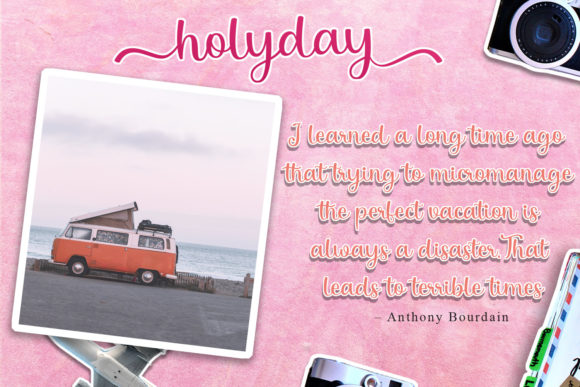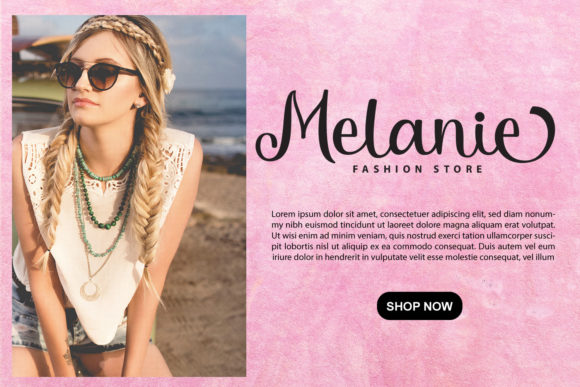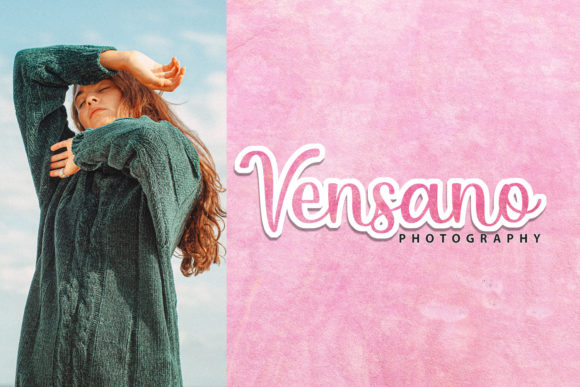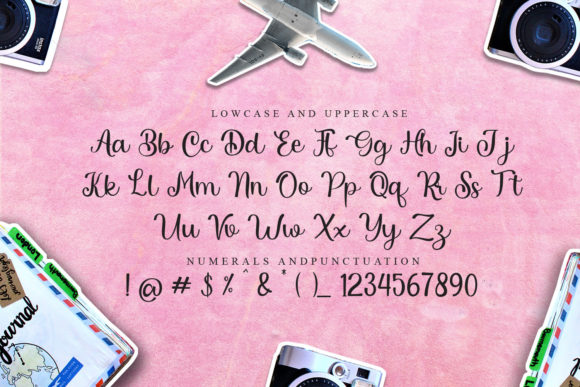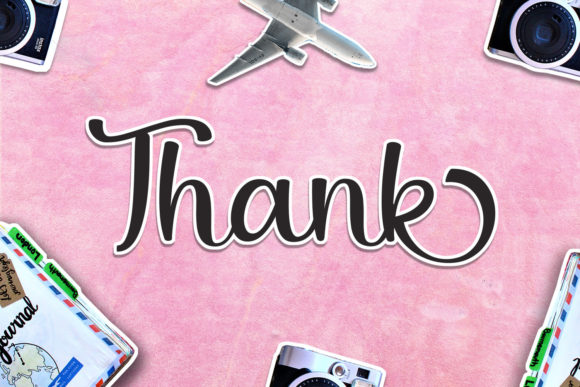
Bellami Font: Elevate Your Designs with Luxury and Elegance
Are you looking for a font that can add a touch of luxury and sophistication to your design projects? Look no further than the Bellami Font. This beautiful and light handwritten font is designed to make a stunning impact on any design, making it perfect for crafters, designers, and anyone looking to elevate their creative projects.
What Makes Bellami Font Special?
Bellami Font is not just any ordinary font. Its unique feel and stunning impact set it apart from other fonts, making it a standout choice for designers and crafters. Here are some of the key features that make Bellami Font special:
- Beautiful and Light Handwritten Font: Bellami Font is a carefully crafted handwritten font that exudes elegance and sophistication. Its light and airy feel makes it perfect for designs that require a touch of luxury and refinement.
- Unique Feel and Stunning Impact: The font’s unique feel and stunning impact make it perfect for designs that require a statement piece. Whether you’re working on a branding project, a website design, or a marketing material, Bellami Font is sure to make a lasting impression.
How to Use Bellami Font in Your Designs
Bellami Font is a versatile font that can be used in a wide range of design projects. Here are some ideas for using Bellami Font in your designs:
- Branding and Logo Design: Use Bellami Font to create a luxurious and sophisticated brand identity. The font’s unique feel and stunning impact make it perfect for logos, business cards, and other branding materials.
- Website Design: Add a touch of elegance and refinement to your website design with Bellami Font. The font’s light and airy feel makes it perfect for headings, titles, and other design elements.
- Marketing Materials: Use Bellami Font to create stunning marketing materials such as brochures, flyers, and posters. The font’s unique feel and stunning impact are sure to grab the attention of your target audience.
- Crafting and DIY Projects: Bellami Font is also perfect for crafters and DIY enthusiasts. Use the font to create beautiful and elegant titles, headings, and other design elements for your crafting and DIY projects.
Tips for Getting the Most Out of Bellami Font
Here are some tips for getting the most out of Bellami Font:
- Experiment with Different Sizes and Colors: Bellami Font looks great in a variety of sizes and colors. Experiment with different sizes and colors to find the perfect combination for your design.
- Use the Font’s Glyphs and Ligatures: Take advantage of the font’s PUA encoding by using its glyphs and ligatures. These special characters can add an extra touch of elegance and sophistication to your design.
- Pair the Font with Other Fonts: Bellami Font pairs well with other fonts. Experiment with pairing it with different fonts to create a unique and interesting design.